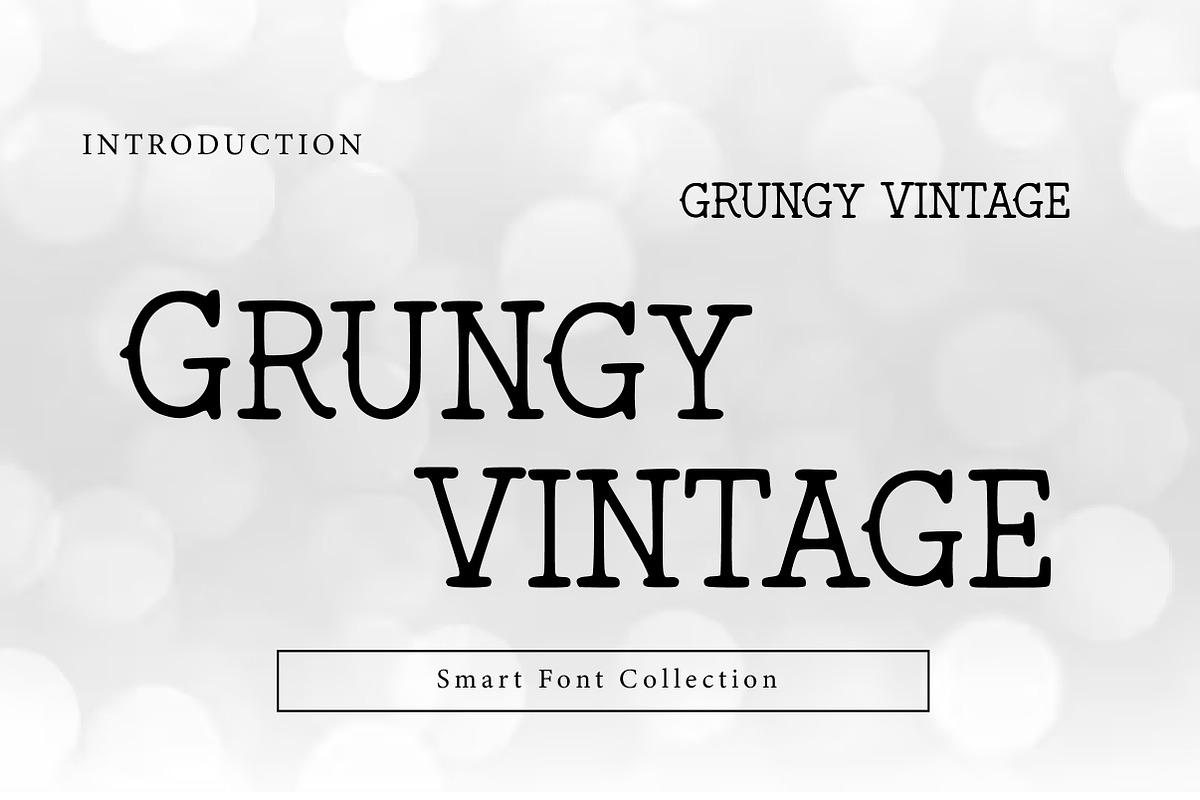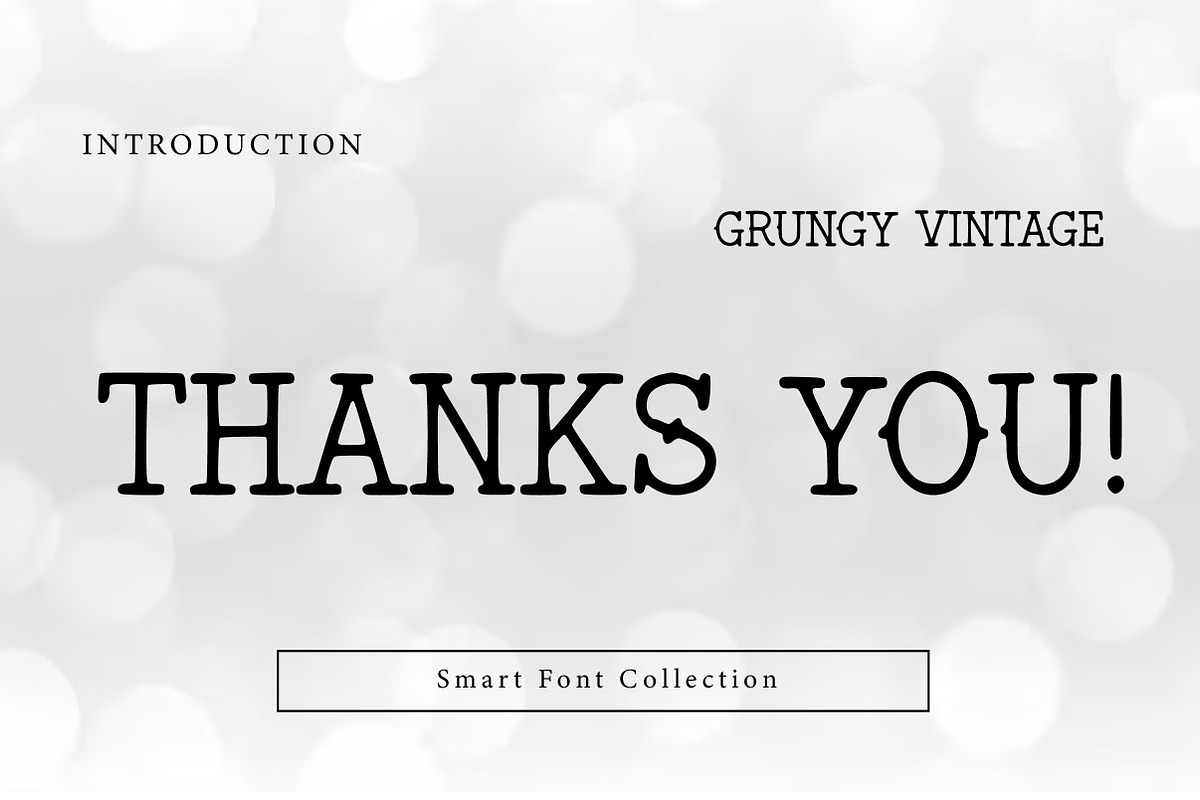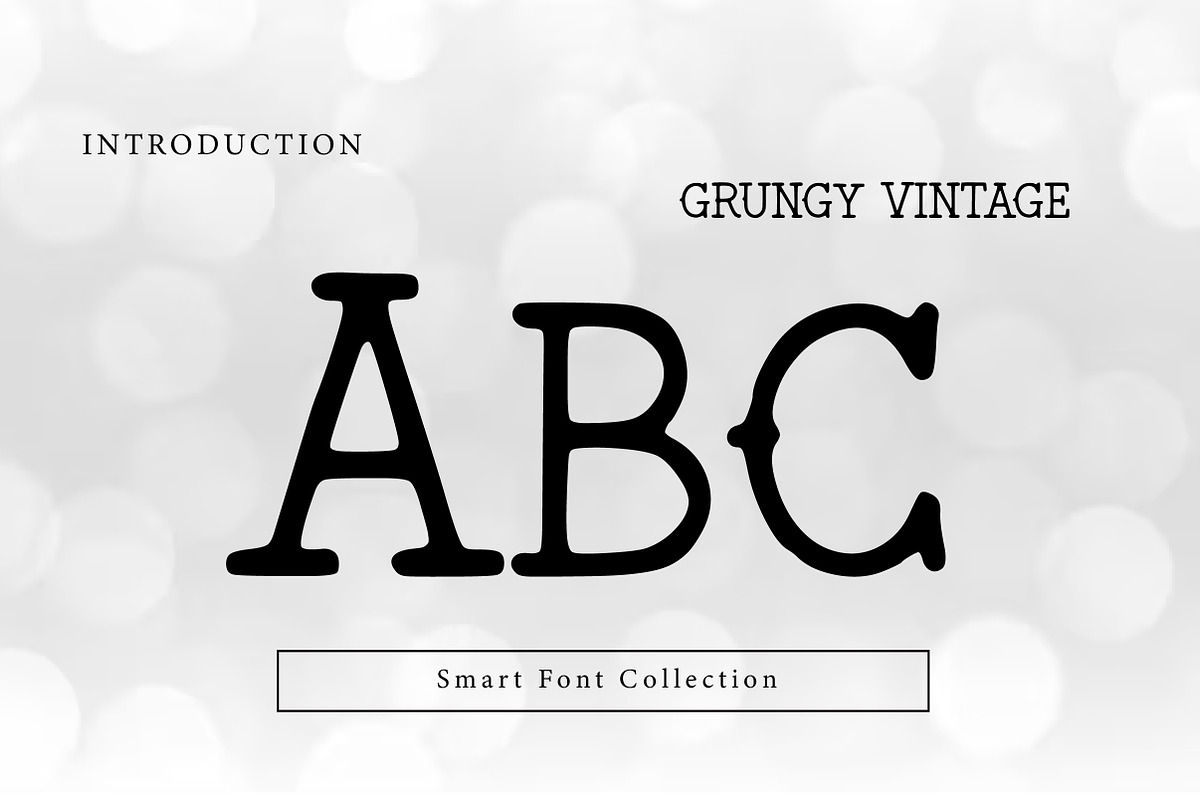
Grungy vintage
Grungy Vintage is a rugged, distressed vintage display serif font with rough edges and a worn, print-like texture. Inspired by old posters and aged letterpress type, it’s perfect for retro logos, labels, packaging, posters, headlines, t-shirts, signage, and gritty branding. Grungy Vintage adds instant character, nostalgia, and authentic old-school attitude to your typography.